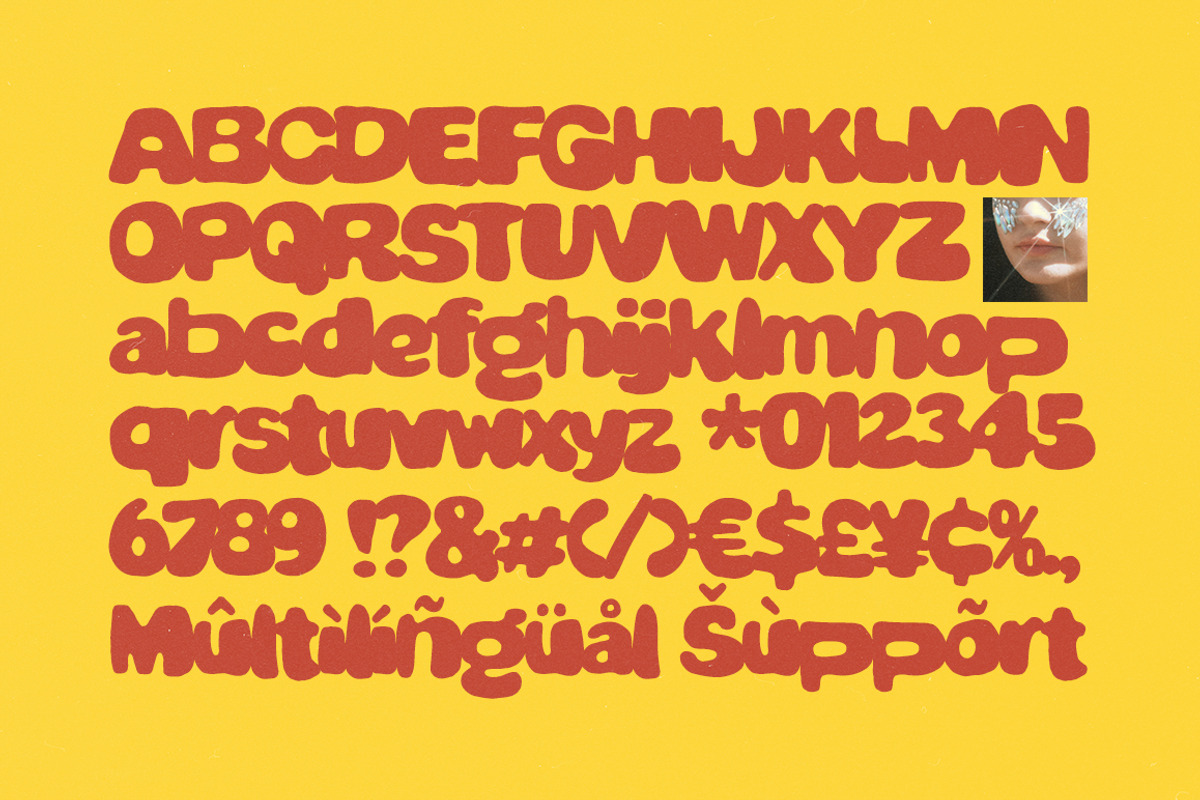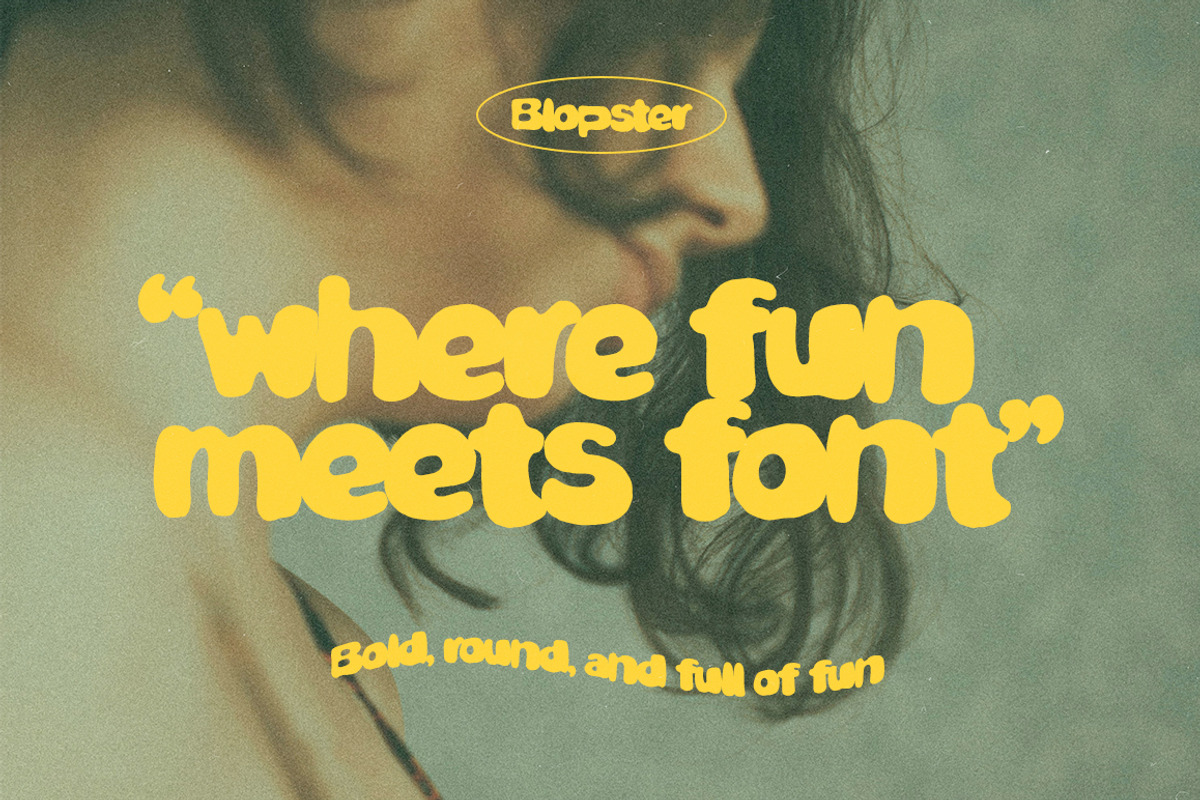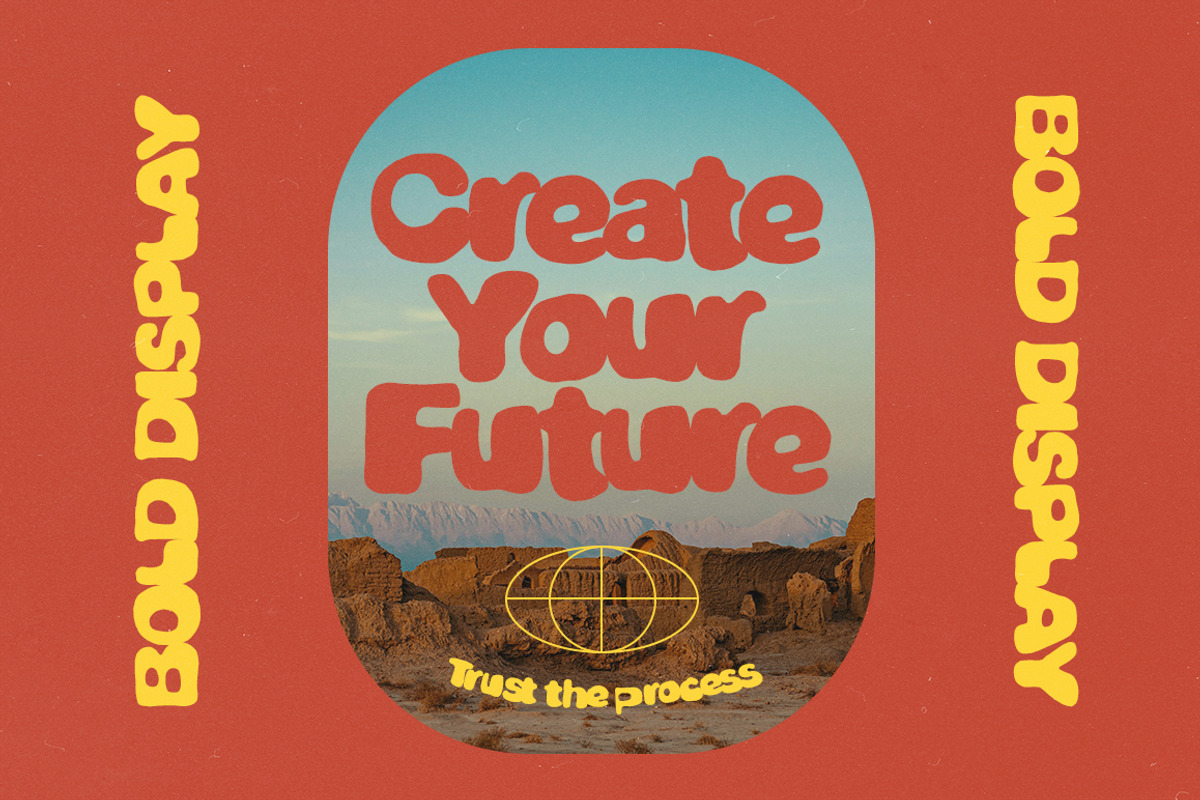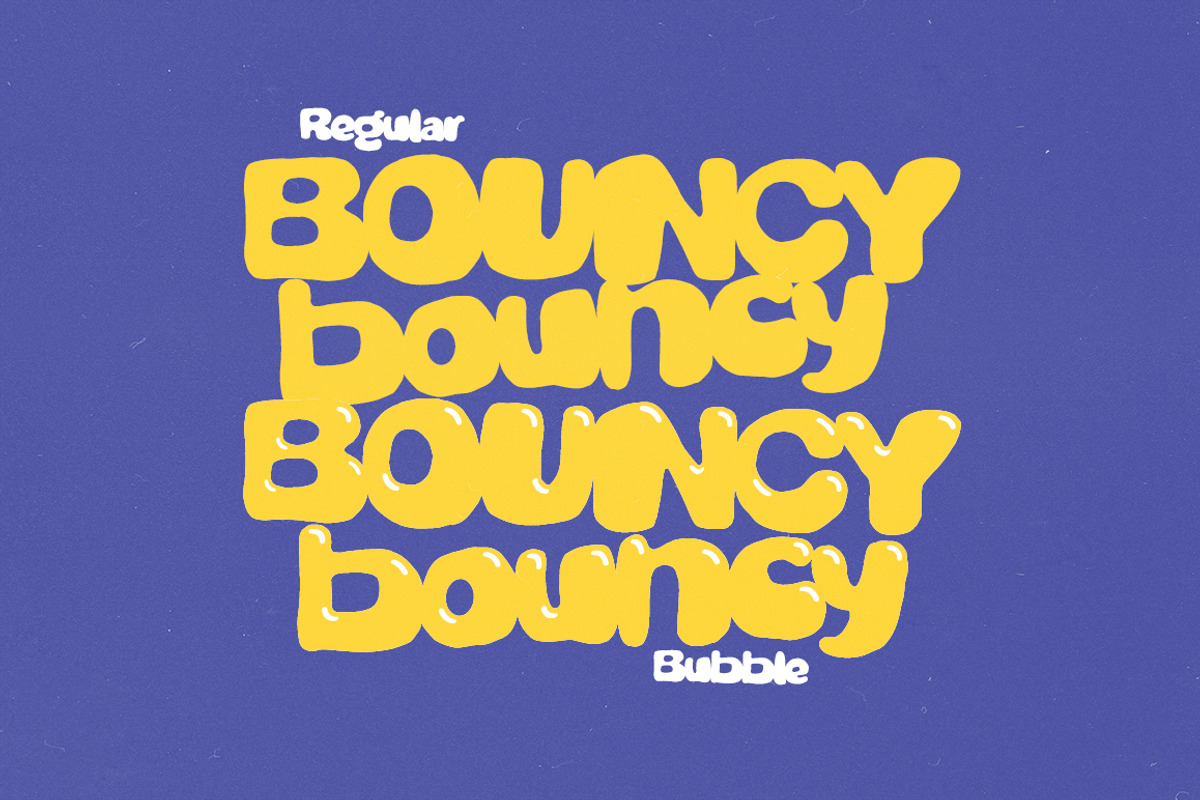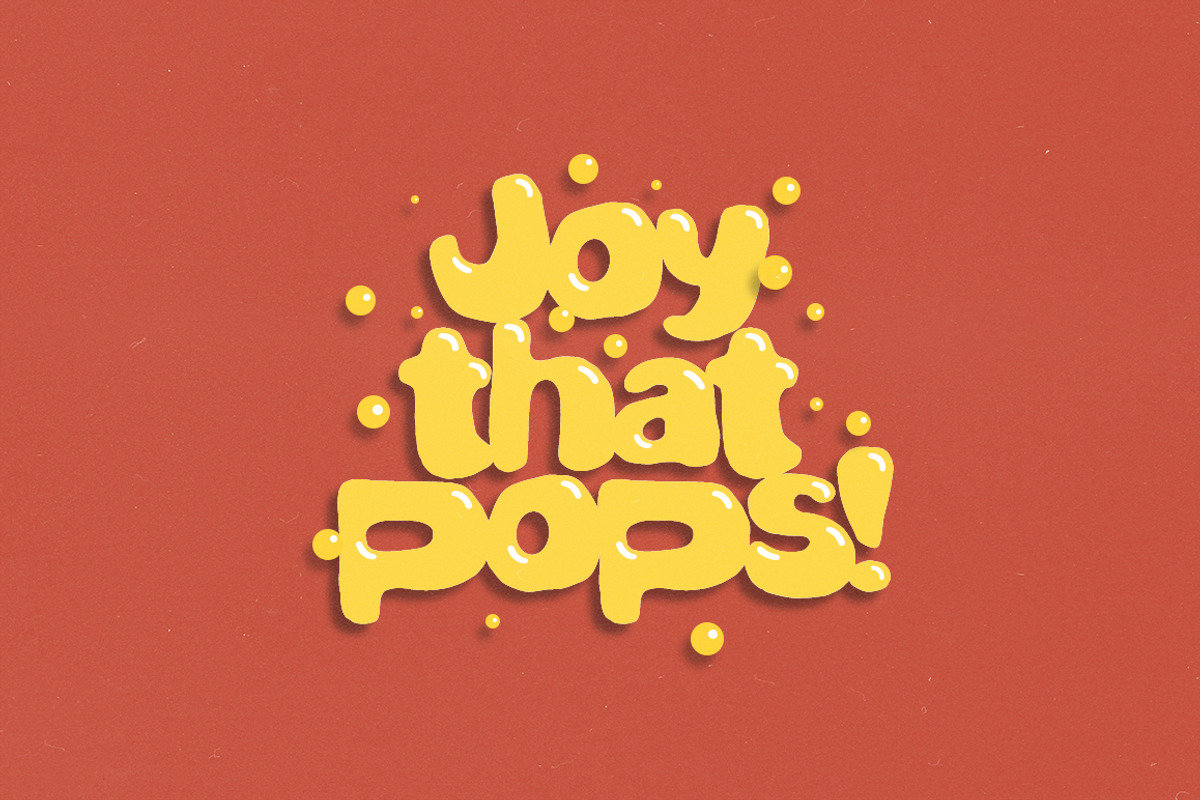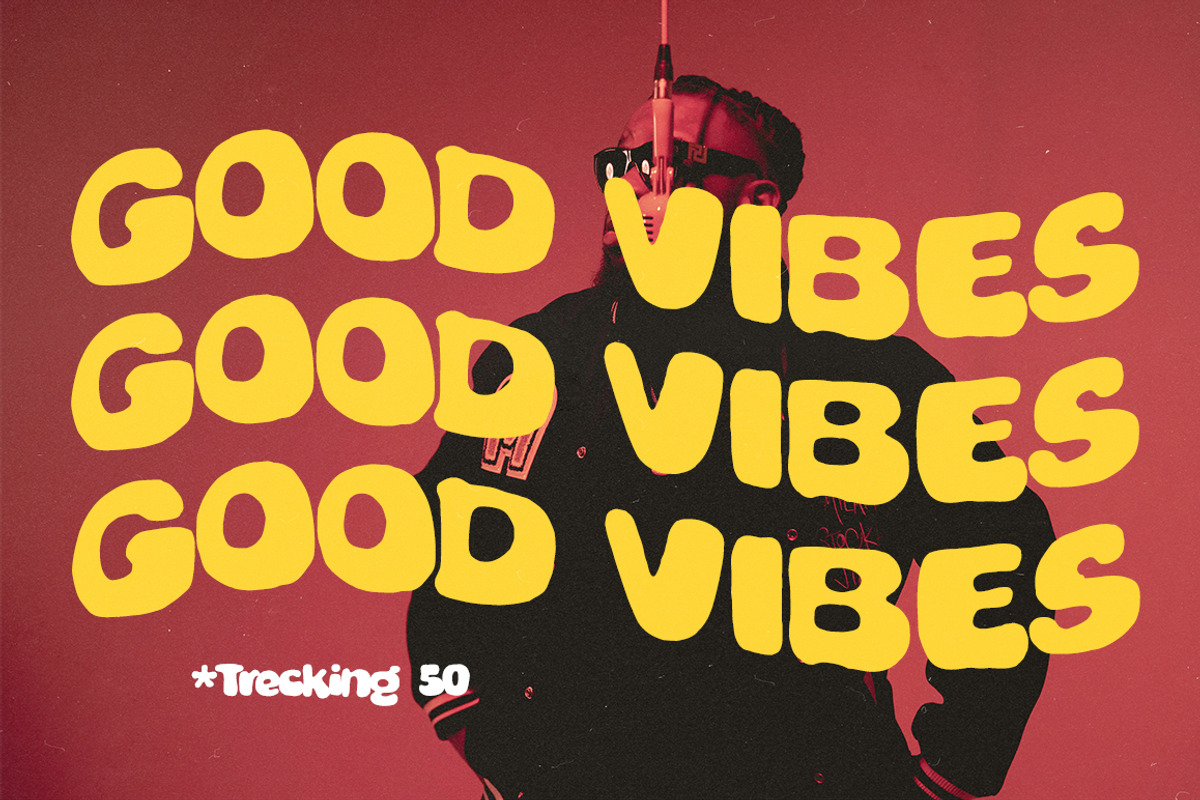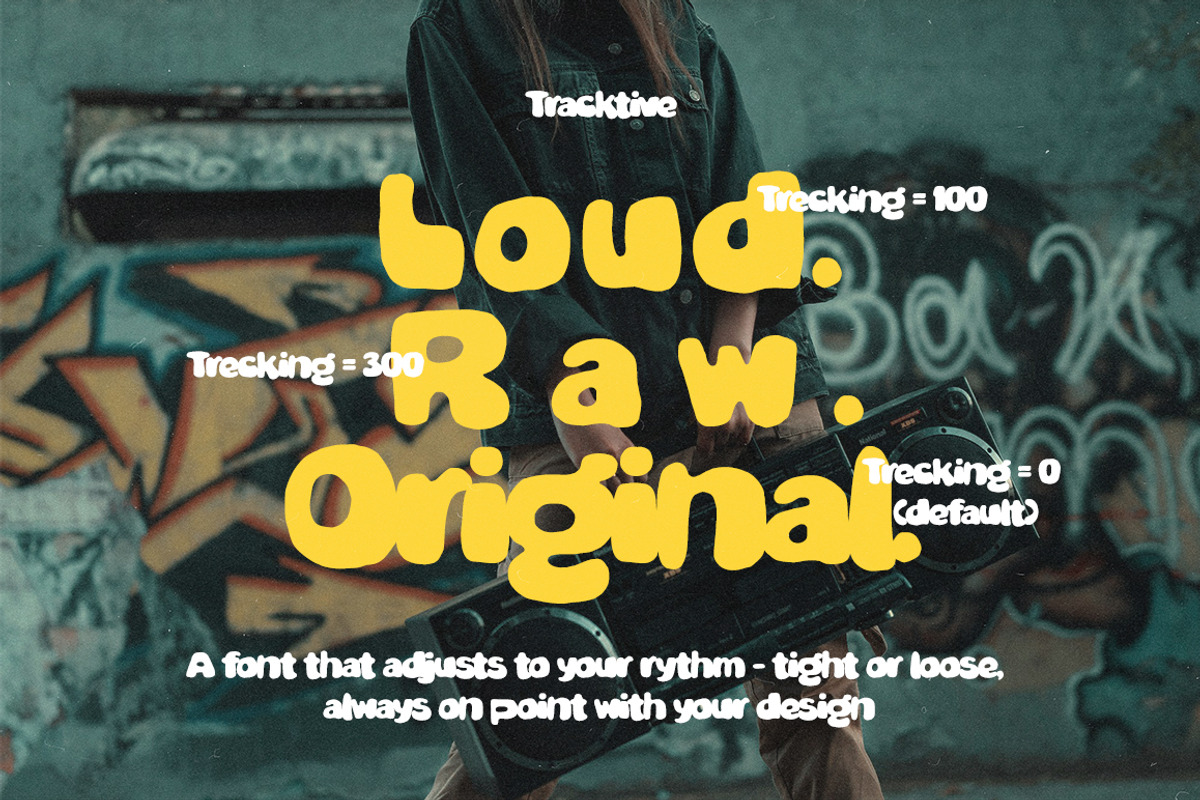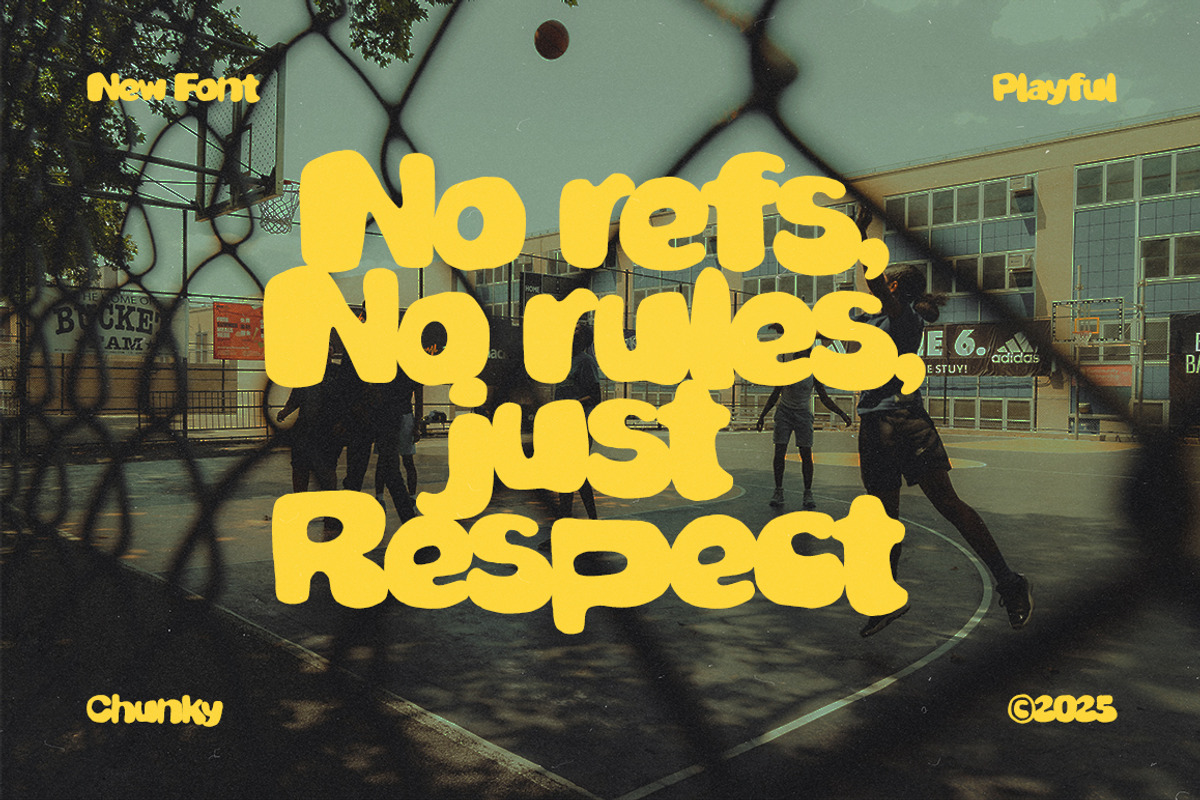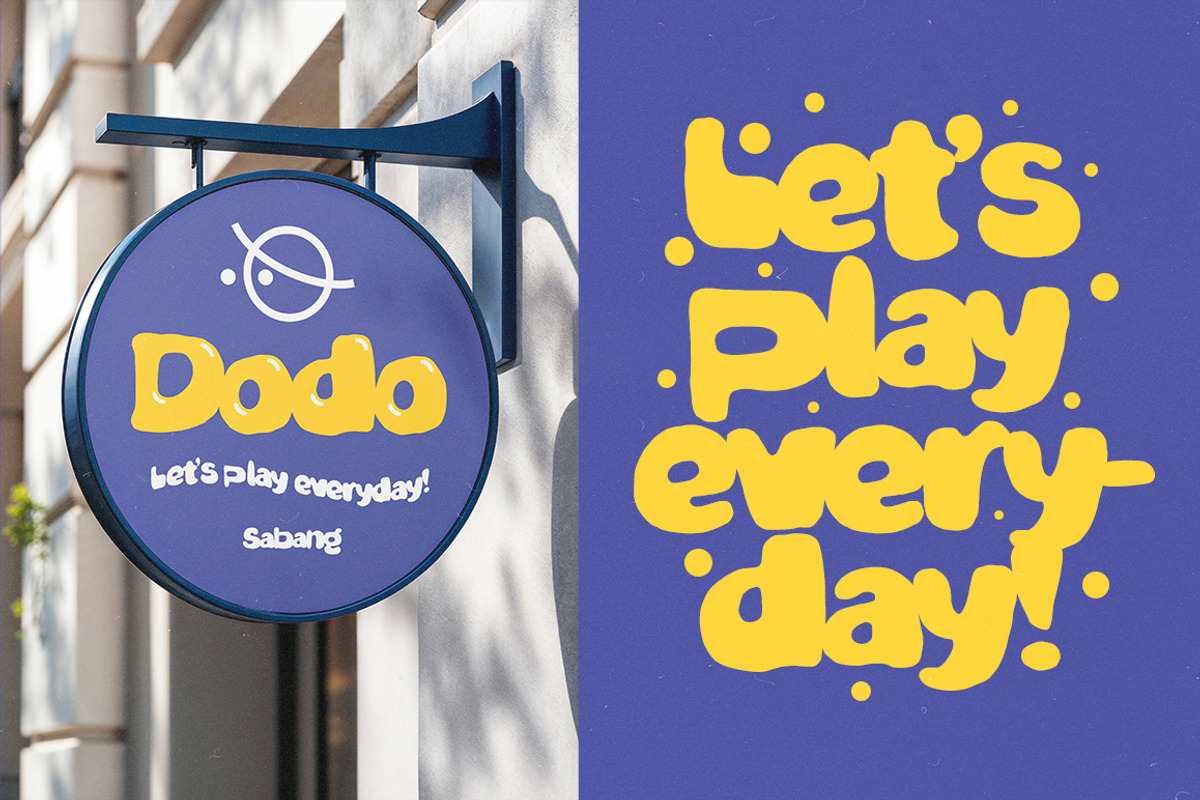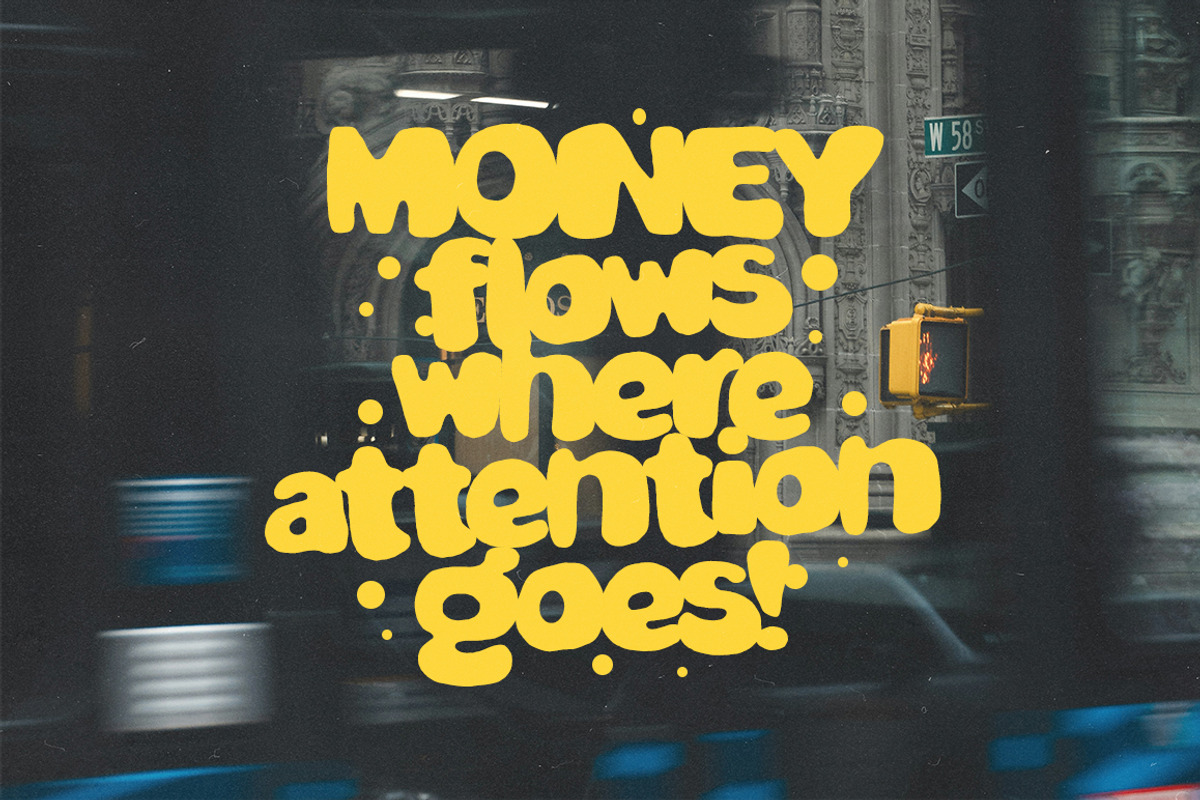
Blopster
Say hello to Blopster, the ultimate playful display font that comes in two bold, expressive styles – the regular chunky version and a dripping Bubble variant that takes things to the next level!
Whether you're after clean, quirky boldness or gooey, glossy drips, Blopster gives you the flexibility to match your vibe. It's bold, bouncy, and packed with personality— perfect for logos, packaging, kids projects, and eye-popping visuals.
- Blopster Regular – Chunky, soft, and friendly with smooth letterforms
- Blopster Bubble – Drippy, glossy details for extra splash & playfulness
- Kids branding, slime shops, candy & toy packaging
- Posters, flyers, YouTube thumbnails & merch
- Stickers, streetwear, fun headlines & bold display designs
- Any creative project that needs a touch of FUN and WOW
Why You’ll Love It: Two styles = double the creative power. Mix and match for contrast, mood shifts, or layered effects. Instantly grabs attention with its thick curves and joyful energy!